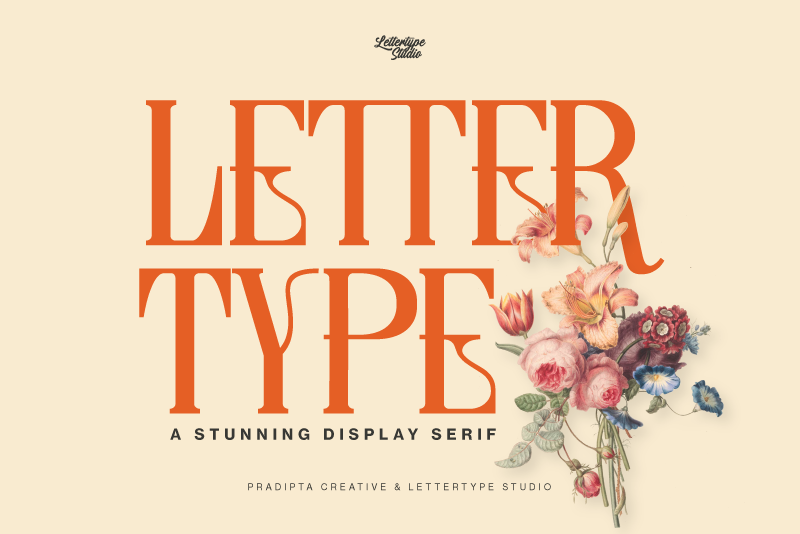
Lettertype is a display serif font with a mixed modern classic style and has many "stylistic alternates".
Lettertype is our new masterpiece typeface, the core of this font is a condensed style and amazing experiment display serif style, this is why it can be perfect to be your headline or sub-headline in any project.
This typeface is perfect for vintage vibes, logo design, classic & vintage poster layouts, fashion lookbooks, book covers, packaging, food & beverages, and also good for quotes, or simply as a stylish text overlay to any background image and much more!